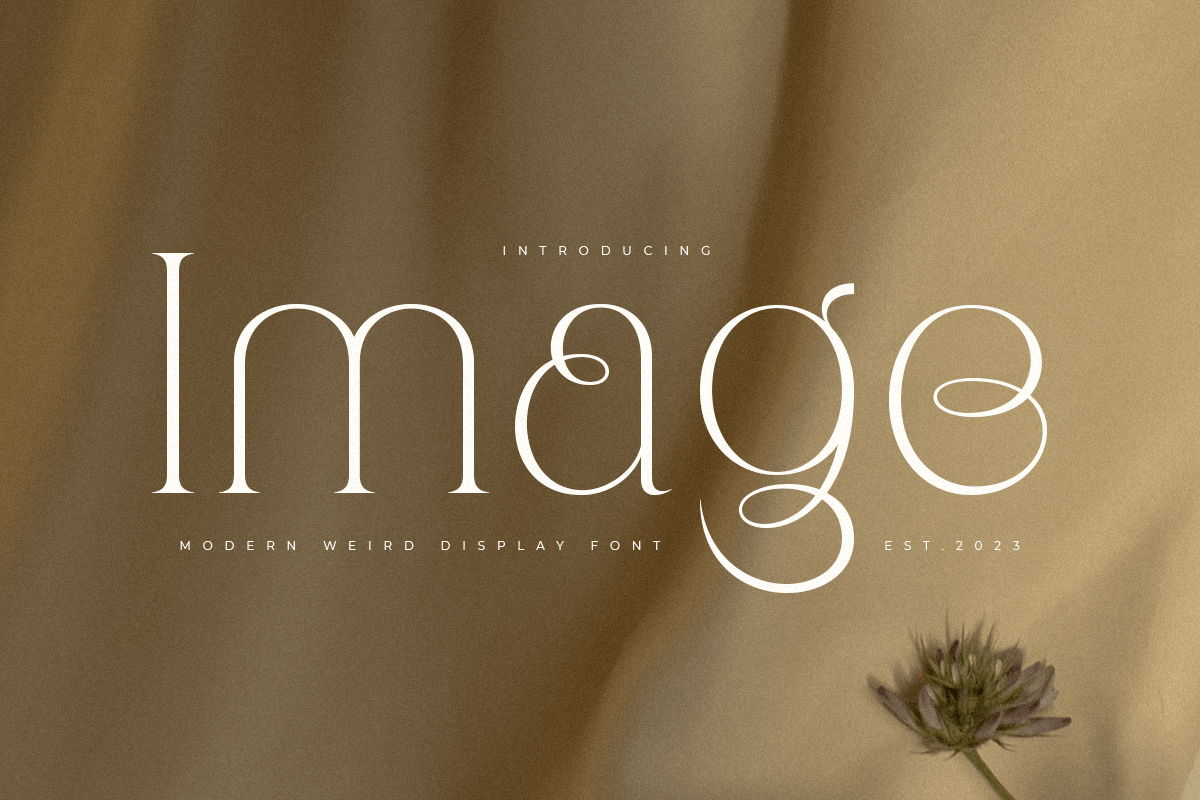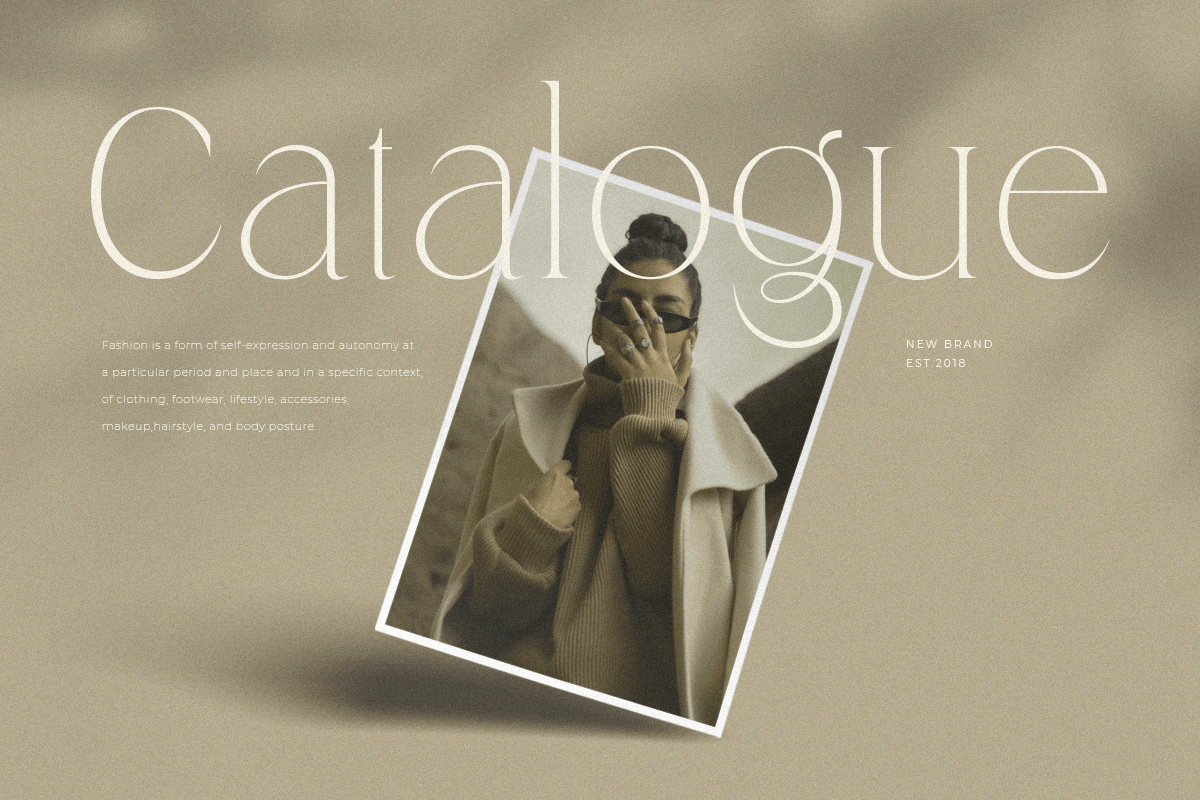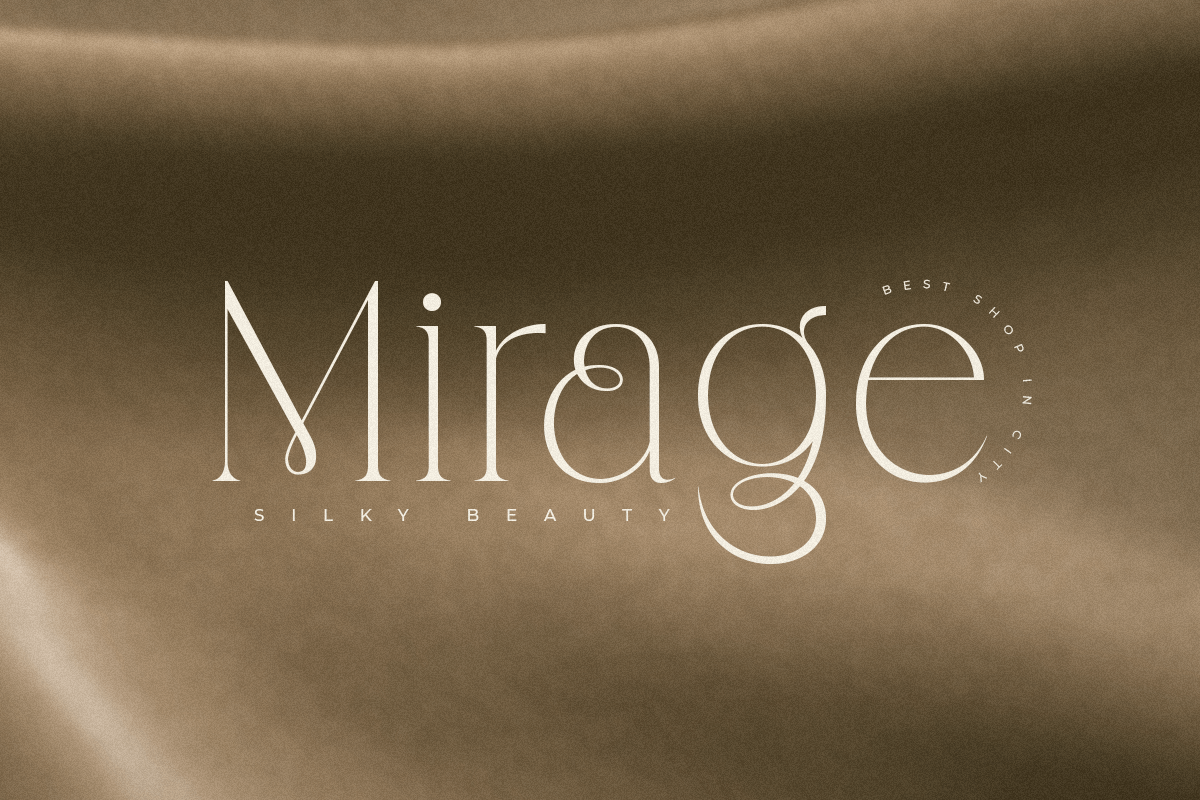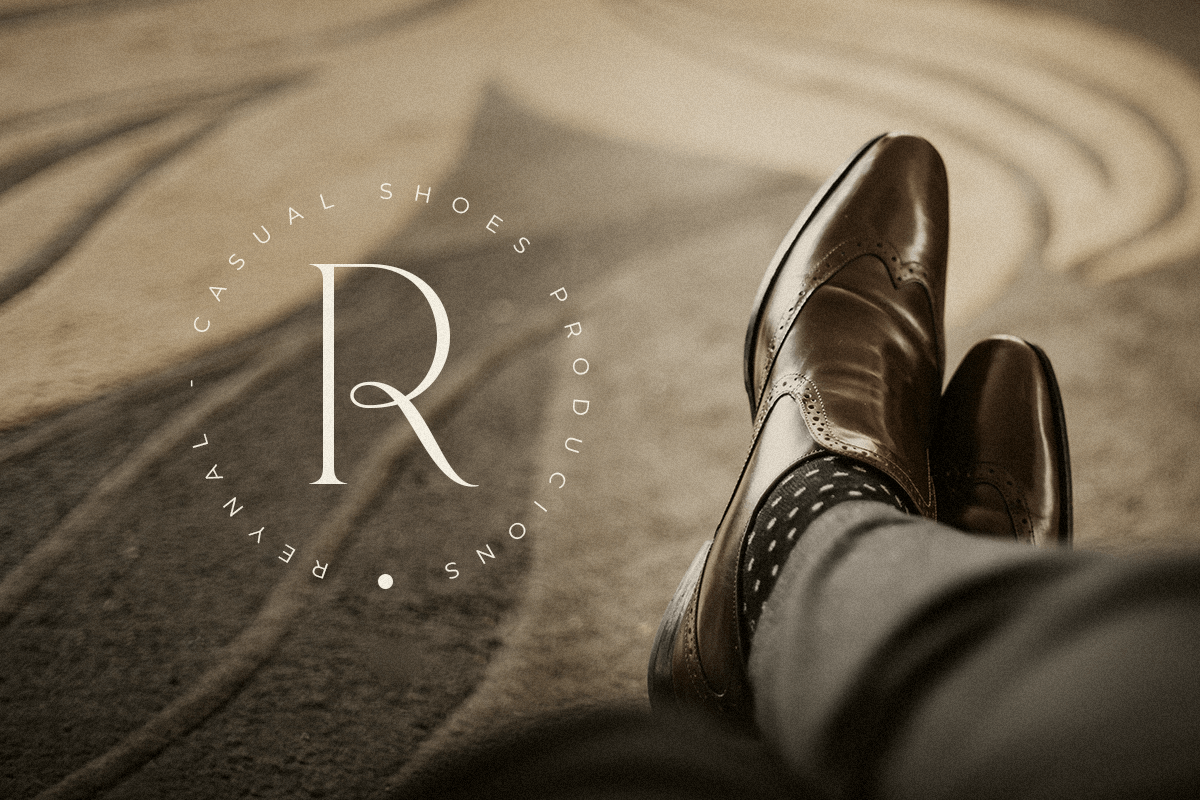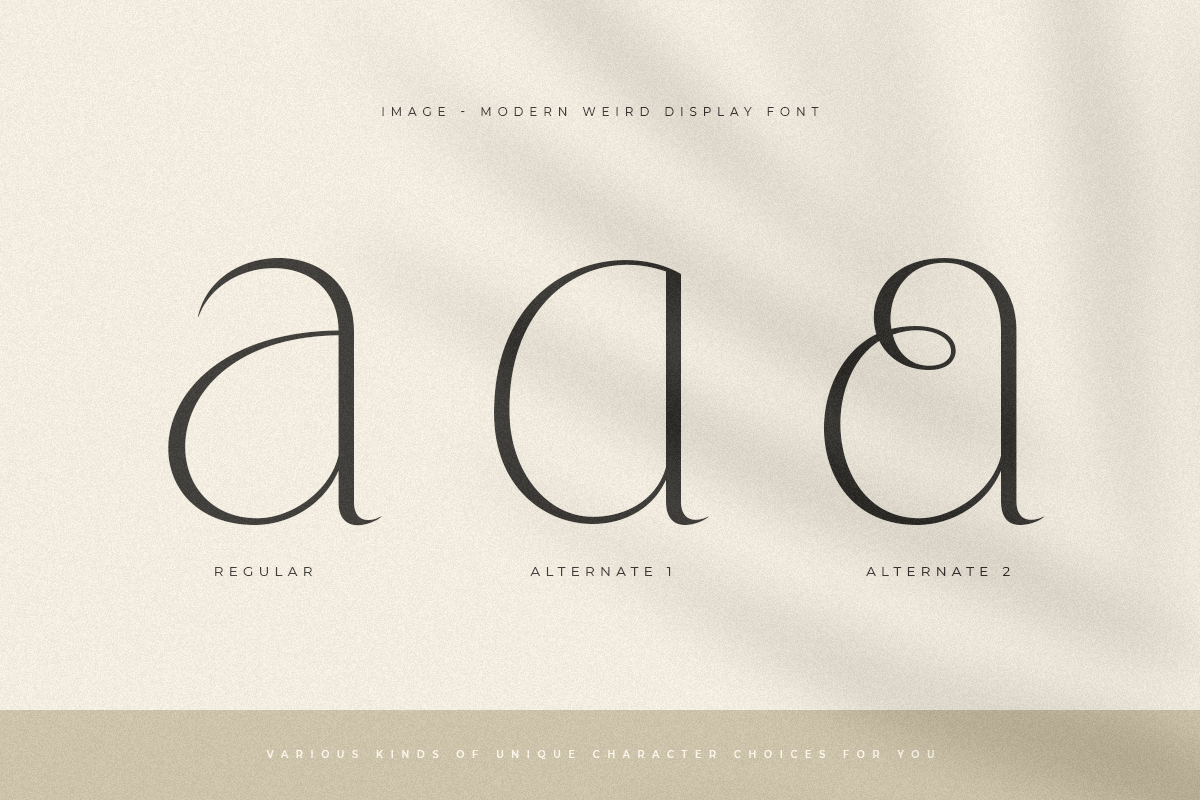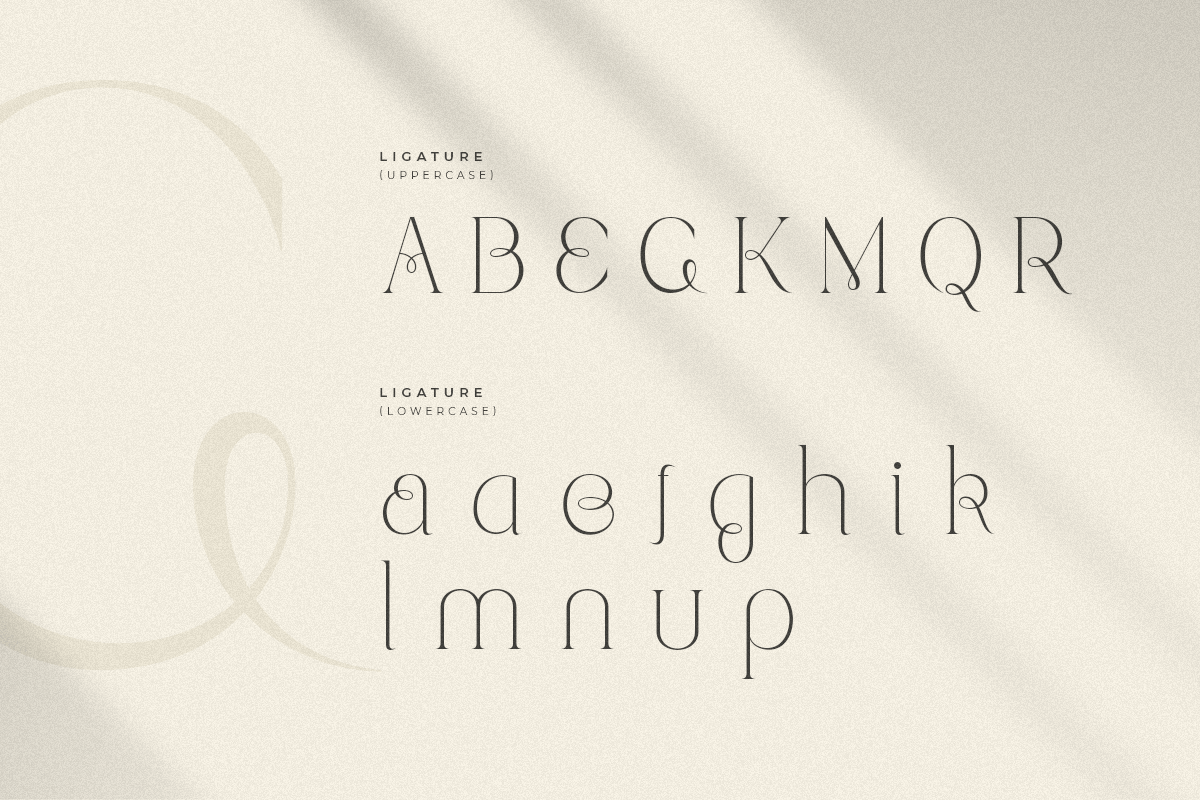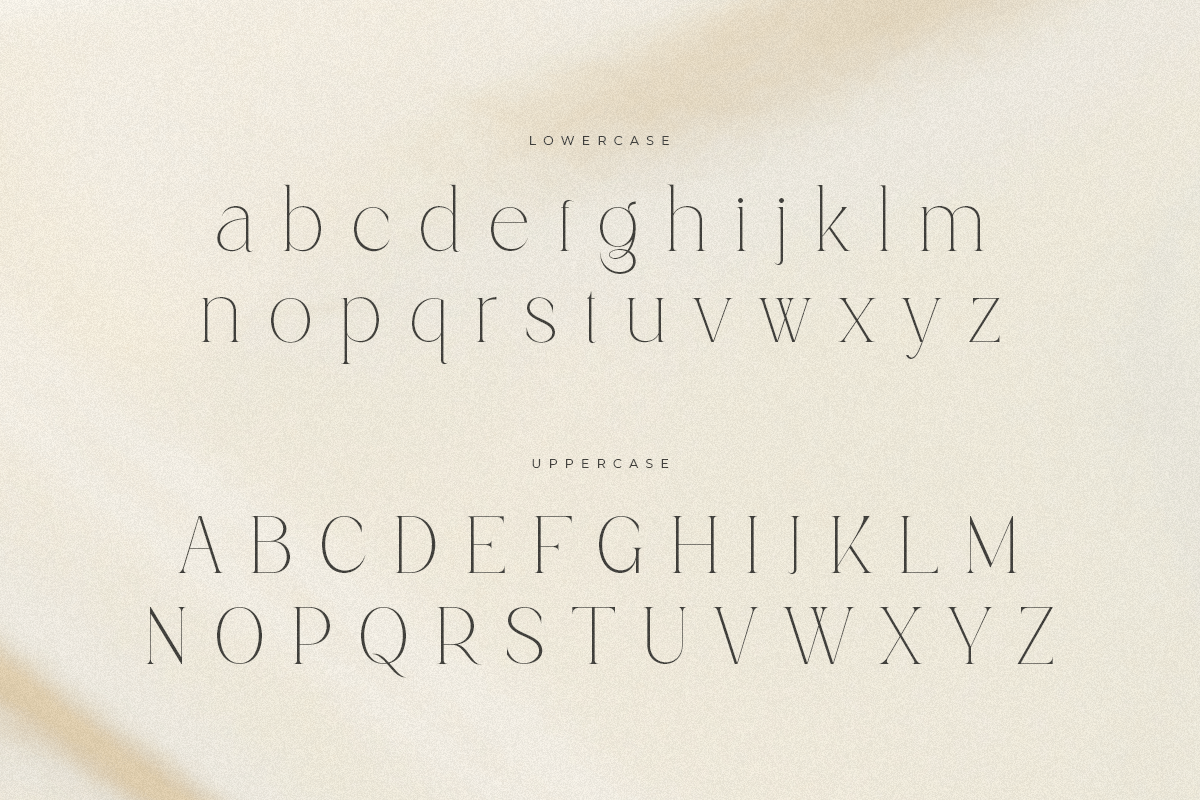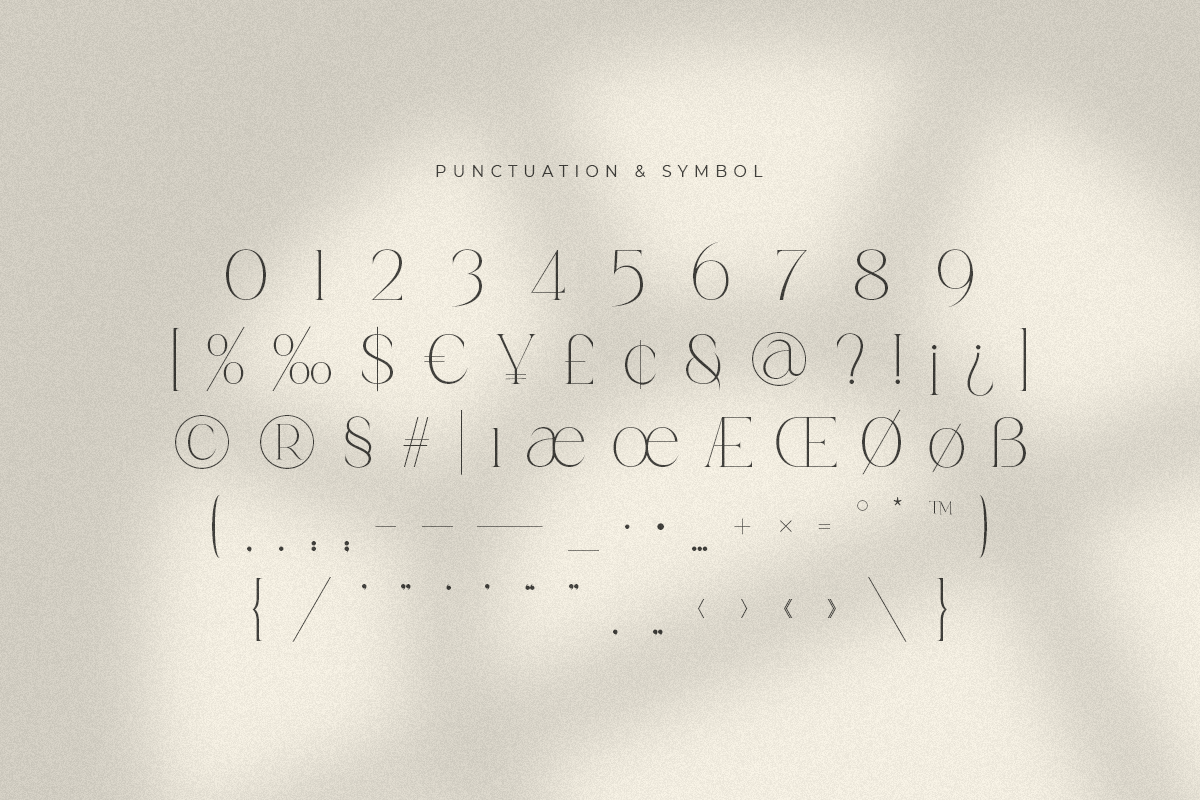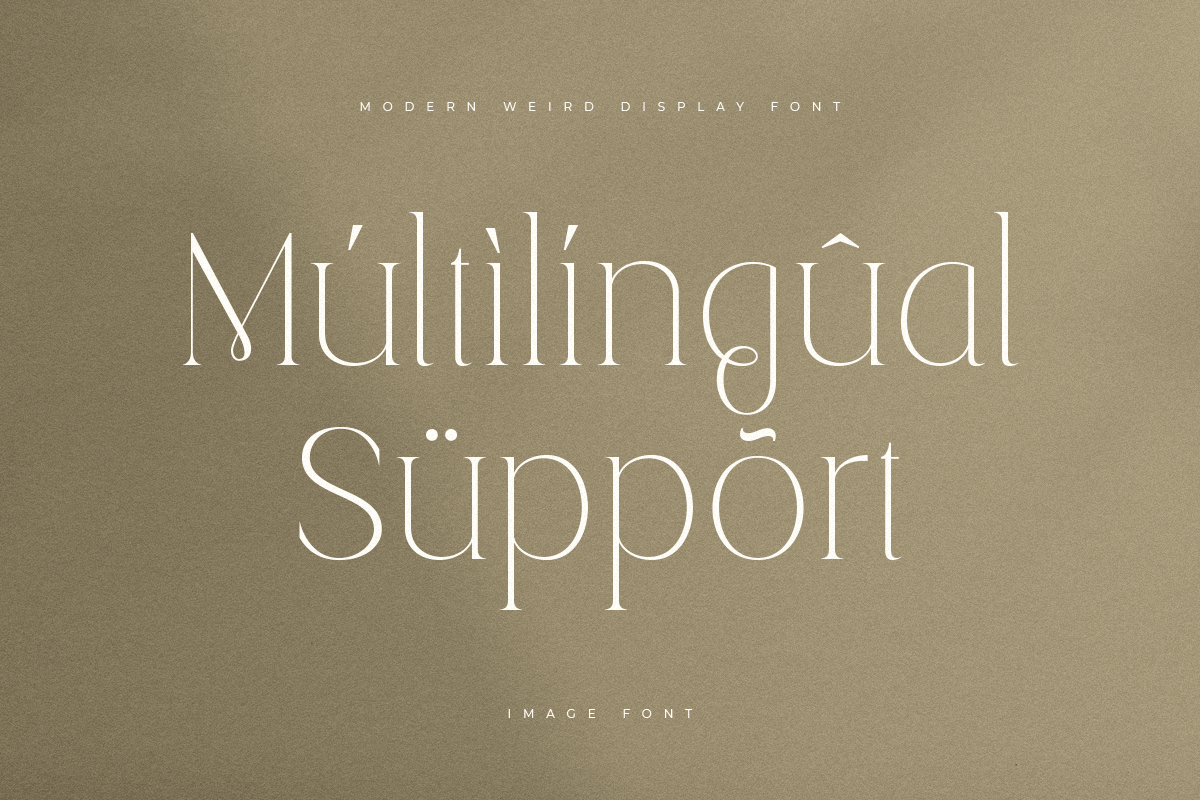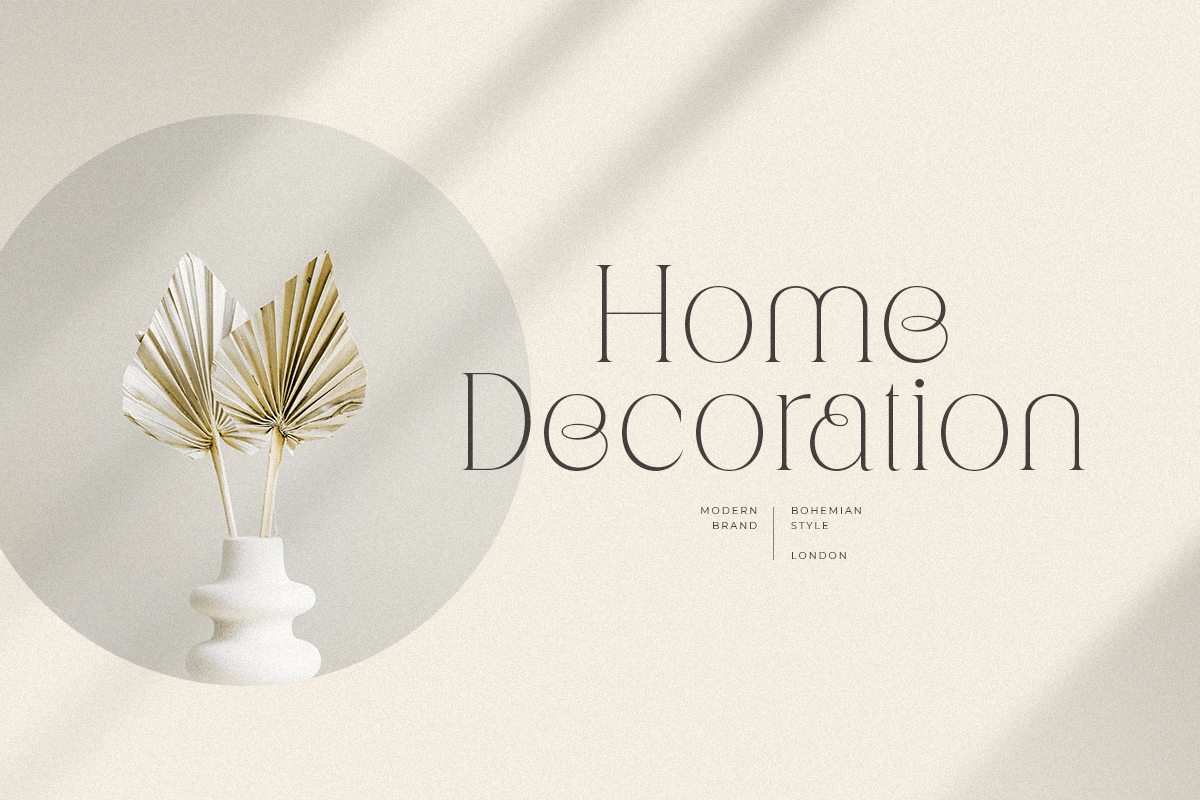
Image
-Modern Weird Display Font
Image
A Modern Weird Luxury font that we created special for elegant branding needs, with unique shape will be ready to add value of your brand. It so nice to leverage designer or product owner that need solutions to make their design look more stylish and modern. And specially for Image font, We prepared any characters to help you create unlimited variations for your creative needs.